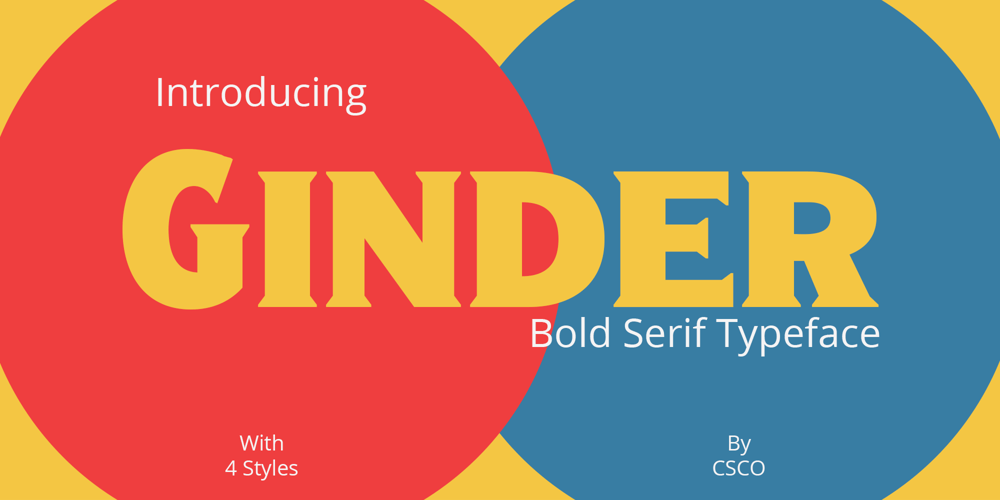
Ginder Font Family was designed by Trio Nazzar Saputra, Wahyu Hadi Yuana and published by Craft Supply Co. Ginder contains 4 styles and family package options. Ginder – Bold Serif Font: Striking and VersatileBold and Commanding Presence:Ginder – Bold Serif Font stands out with its strong, bold character. It’s perfect for titles and posters needing a powerful impact. This font captures attention effortlessly.Ideal for Titles and Posters:With its robust design, Ginder excels in creating striking titles and posters. It enhances visibility and readability. This font is a top choice for impactful visual designs.Adaptable Across Mediums:Despite its boldness, Ginder is surprisingly adaptable. It works well in both digital and print formats. This versatility makes it a valuable tool for various design projects.User-Friendly for Designers:Ginder is designed for ease of use, suitable for all skill levels. Its compatibility with multiple design platforms adds to its appeal. It’s a favorite among graphic designers for its simplicity and impact.